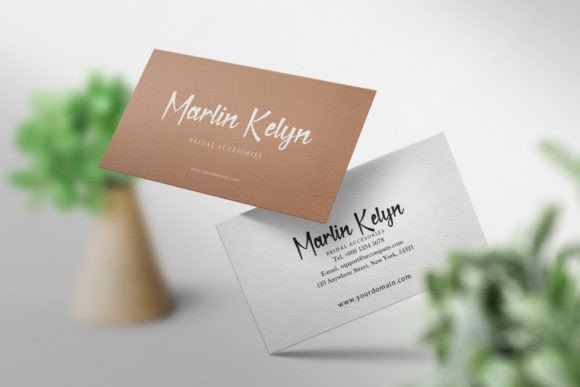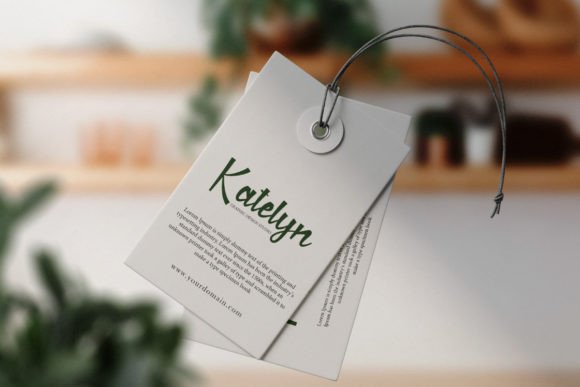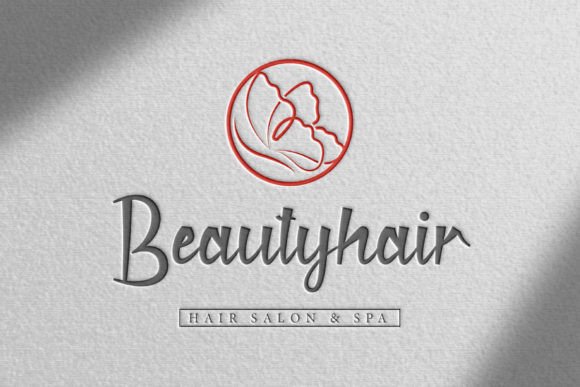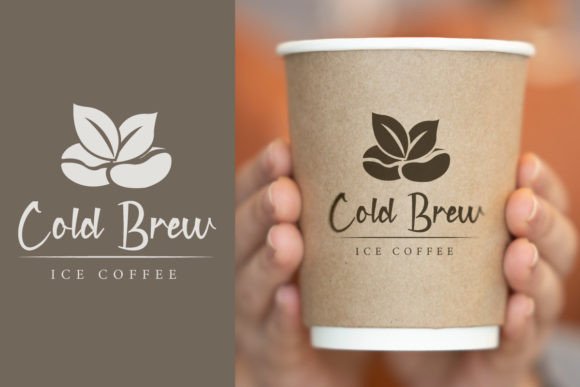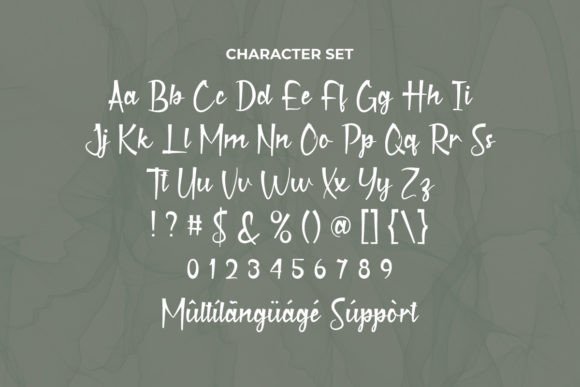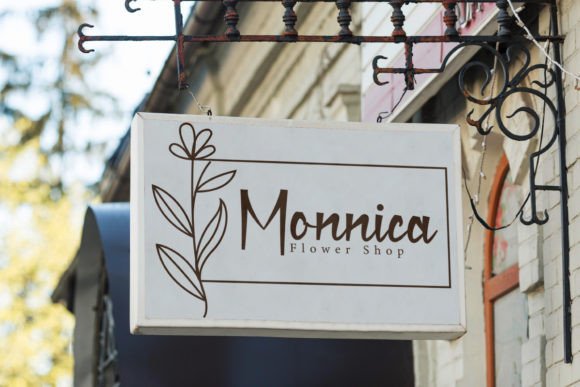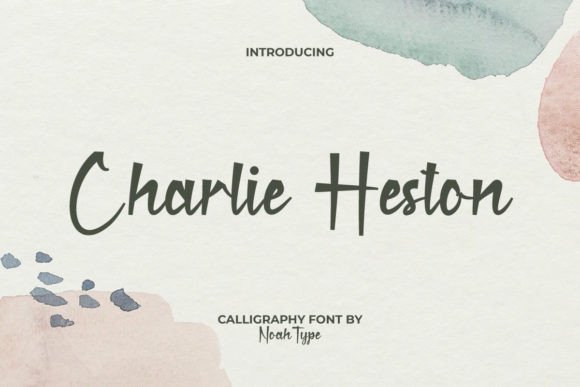
Discover the Unique Charm of Charlie Heston Font: A Calligraphy Marvel
In the realm of typography, fonts play a pivotal role in conveying messages, evoking emotions, and adding personality to designs. Among the myriad of fonts available, Charlie Heston Font stands out for its distinctive calligraphy style and handwriting-like appearance. This article aims to explore the characteristics, uses, and benefits of Charlie Heston Font, making it a must-read for designers, crafters, and typography enthusiasts.
What is Charlie Heston Font?
Charlie Heston Font, often confused with Charlie Heaton Font, refers to a calligraphy font that boasts a unique handwriting shape. The letters in this font are closely designed, which contributes to its energetic and lively feel. This characteristic makes it an excellent choice for projects that require a personal touch, creativity, and a dash of elegance.
Key Features of Charlie Heaton Font
- Unique Handwriting Style: The font mimics handwriting, providing a personal and authentic feel to any design.
- Energetic and Lively: The closely designed letters give the font a dynamic and vibrant appearance, perfect for capturing the audience’s attention.
- Versatility: Charlie Heaton Font can be used across various design projects, from digital content to print materials, offering flexibility to designers.
- Calligraphy Elements: Incorporating calligraphy elements, the font adds a touch of sophistication and elegance, making it suitable for high-end designs.
Applications of Charlie Heaton Font
The versatility of Charlie Heaton Font makes it a valuable asset for designers working on a wide range of projects. Some of the key applications include:
- Branding and Logos: The unique and lively feel of the font can help brands stand out and create a memorable identity.
- Invitations and Cards: For crafters and designers creating invitations, greeting cards, or thank you notes, this font adds a personal and elegant touch.
- Digital Content: Blogs, social media posts, and website headers can benefit from the energetic vibe of Charlie Heaton Font, enhancing user engagement.
- Advertising and Marketing Materials: The font’s distinctive style can make advertisements and marketing materials more eye-catching and effective.
Charlie Heaton Font offers several benefits that make it a preferred choice among designers and crafters:
- Easy to Read: Despite its calligraphy nature, the font maintains readability, ensuring that messages are conveyed clearly.
- Customizable: Designers can often customize the font to fit their project’s needs, adjusting size, color, and style as required.
- Time-Saving: Having a unique font that can be used across projects saves time and effort in searching for or designing fonts from scratch.
- Inspirational: The font’s unique style can inspire creativity, helping designers to experiment with new ideas and designs.
Charlie Heaton Font, with its distinctive calligraphy style and handwriting-like appearance, offers a fresh and lively feel to designs. Its versatility, readability, and aesthetic appeal make it a valuable tool for designers and crafters looking to add a personal touch to their projects. Whether you’re working on branding, digital content, or handmade crafts, this font is sure to inspire creativity and enhance your designs.
Embracing Charlie Heaton Font in your design arsenal can open up new avenues for creativity and expression. Its unique charm and versatility make it a standout choice for anyone looking to elevate their designs with a touch of elegance and energy.